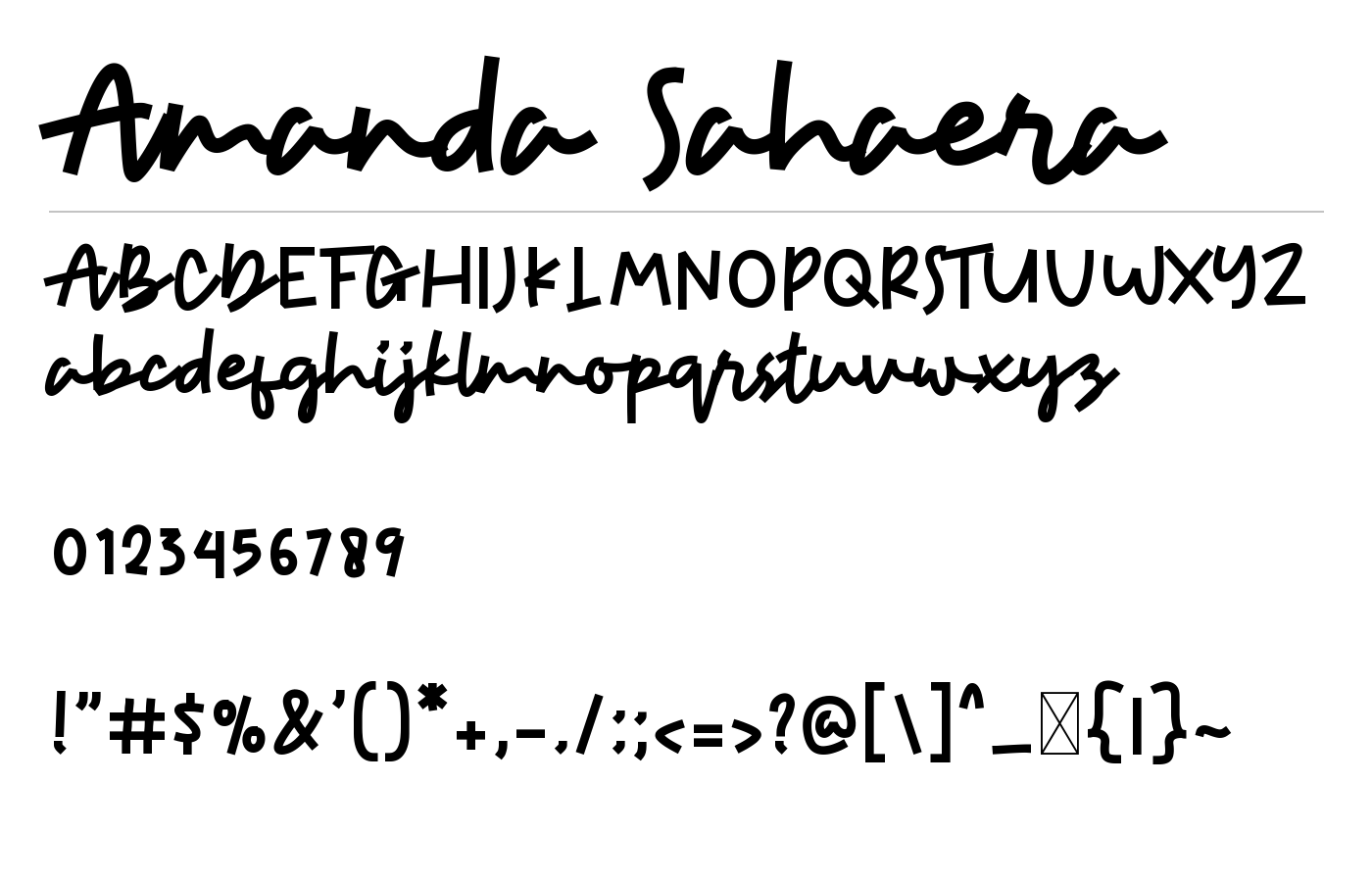
Amanda Sahaera is a playful, casual script font with a handwritten feel, featuring smooth, rounded strokes and an energetic, slightly uneven rhythm that adds personality and warmth. Its moderate weight and lively letterforms make it perfect for friendly, approachable designs like branding, invitations, and social media graphics where a personal touch is desired. This font works well in headlines and short text, bringing a charming and informal vibe that appeals to creative and youthful audiences.
Amanda Sahaera Font